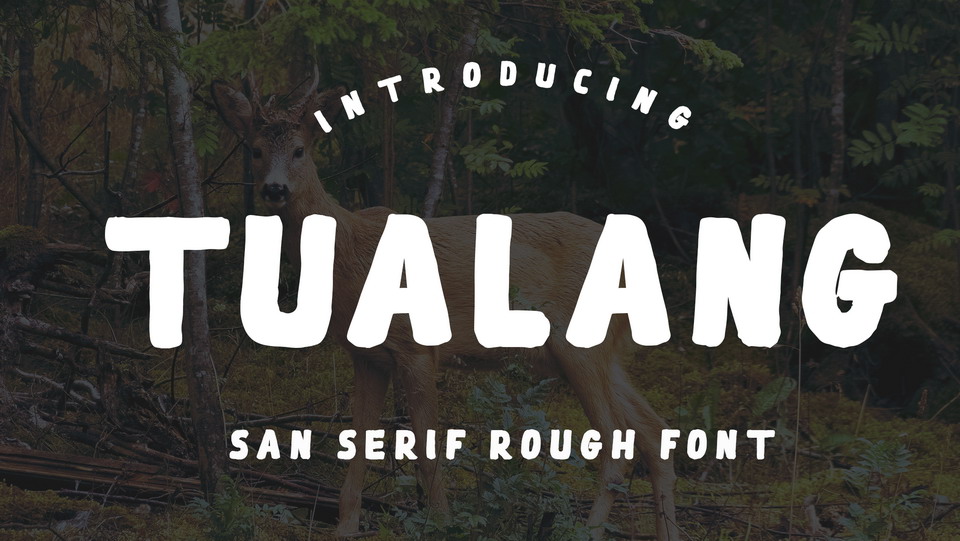
Download Tualang font, a bold handwritten sans serif typeface. Tualang font fits for posters, headlines, t-shirt prints, cards and other crafts.
Designer: Typefar co